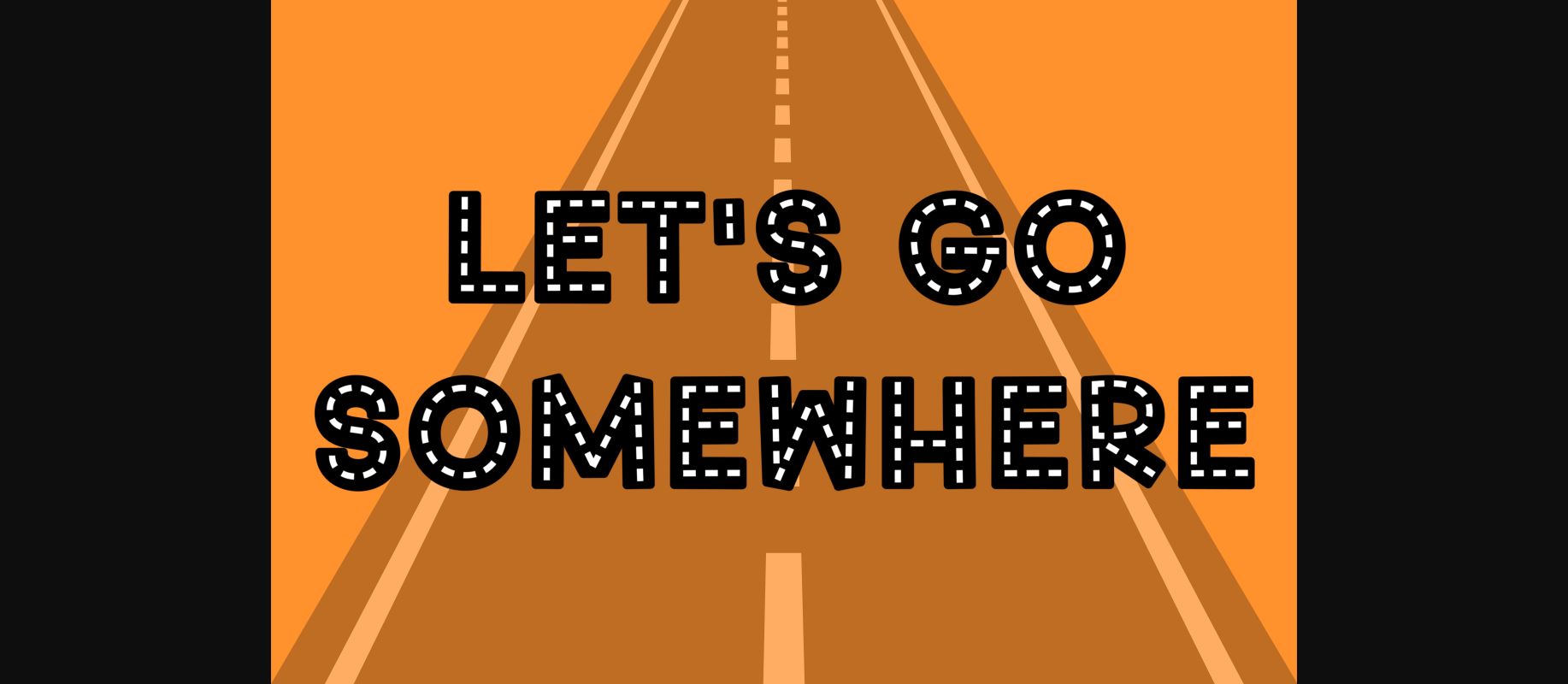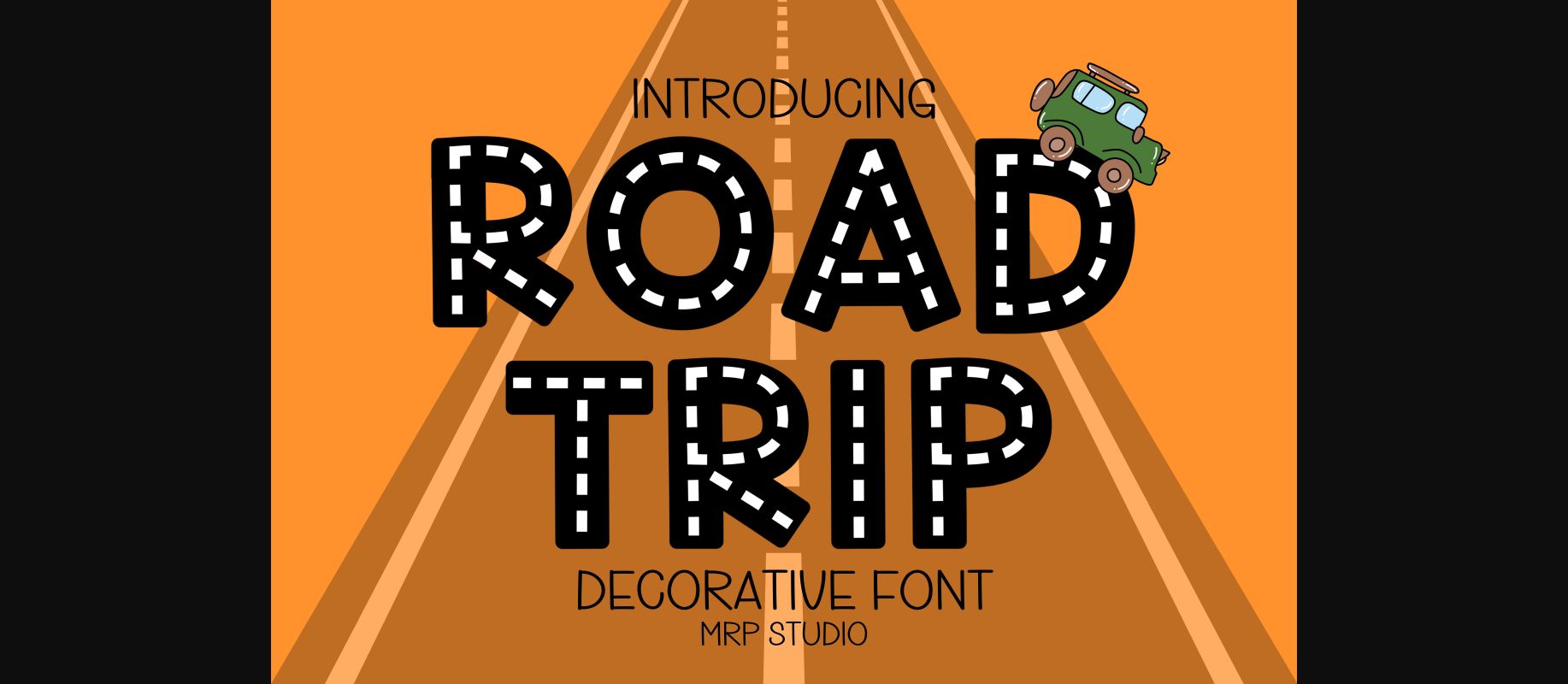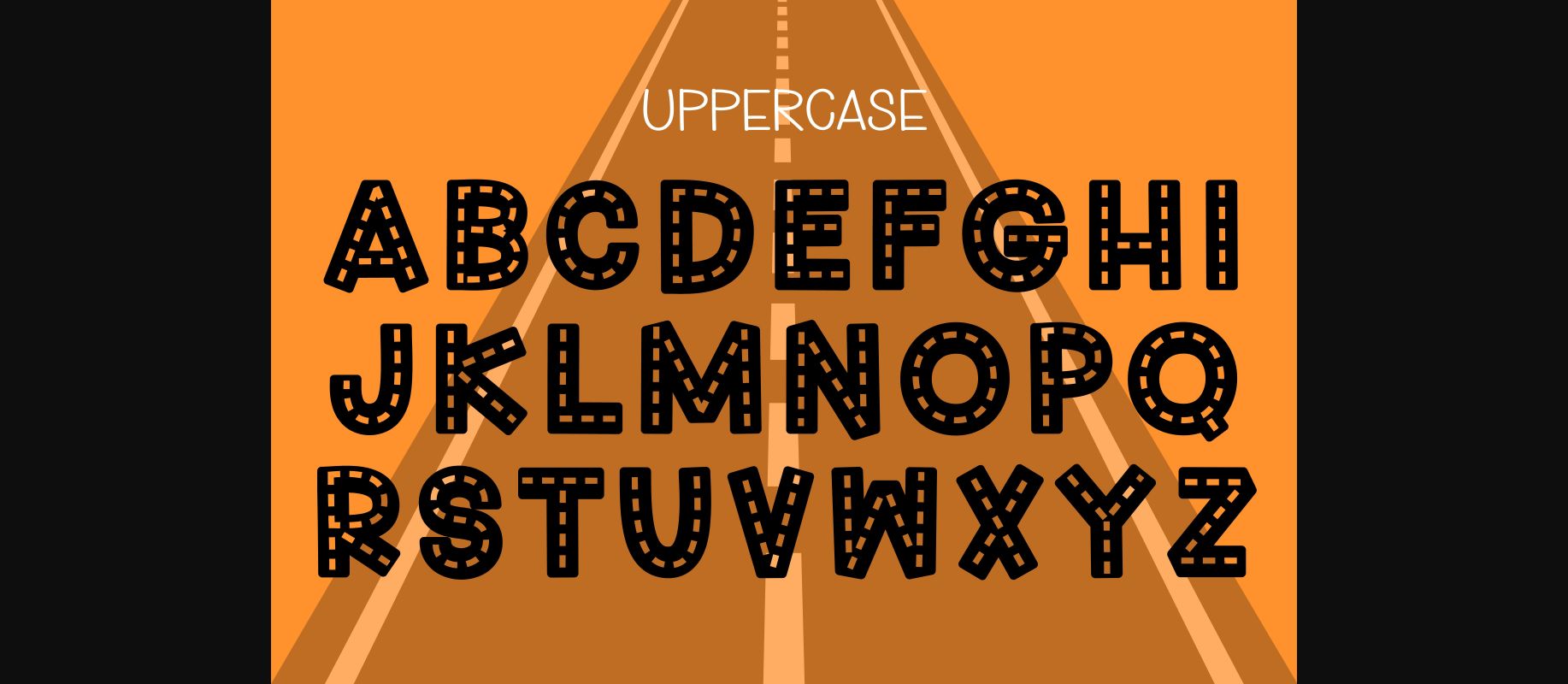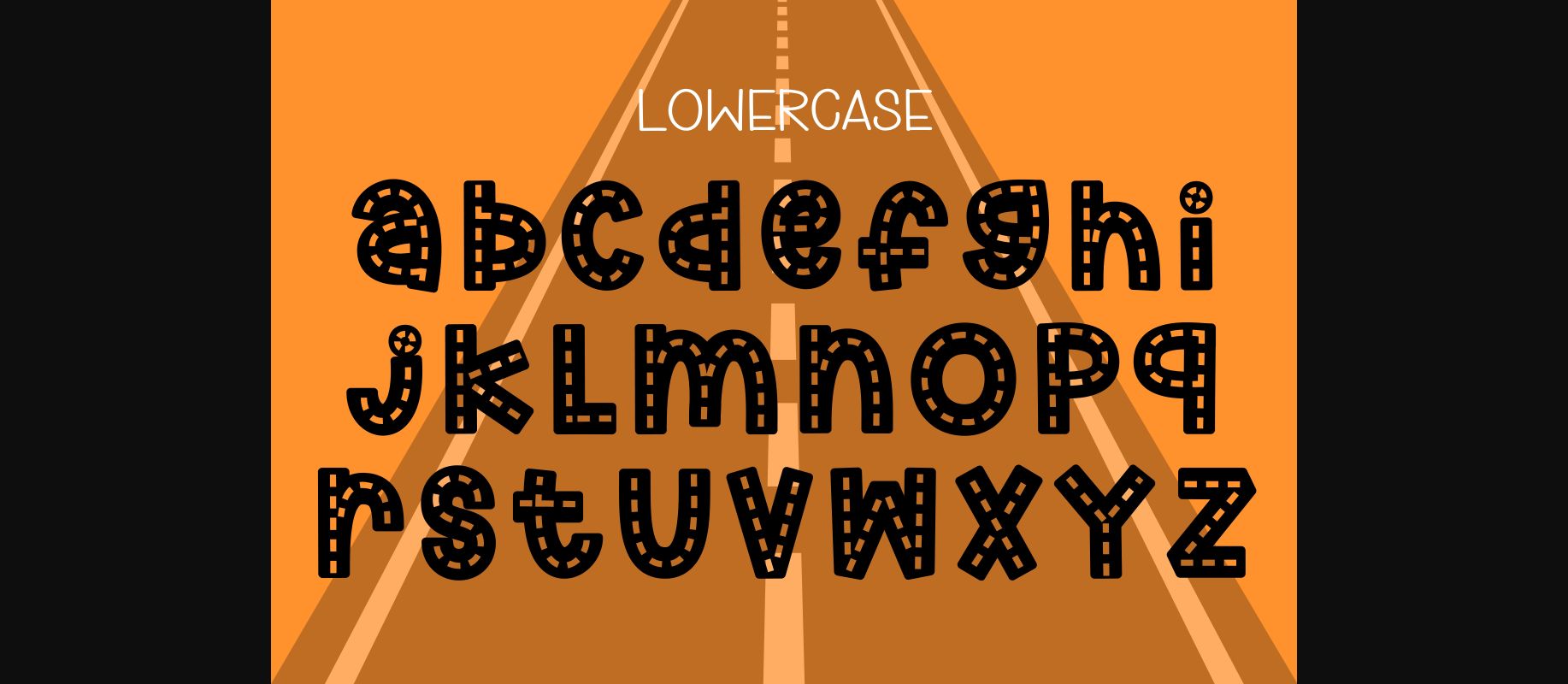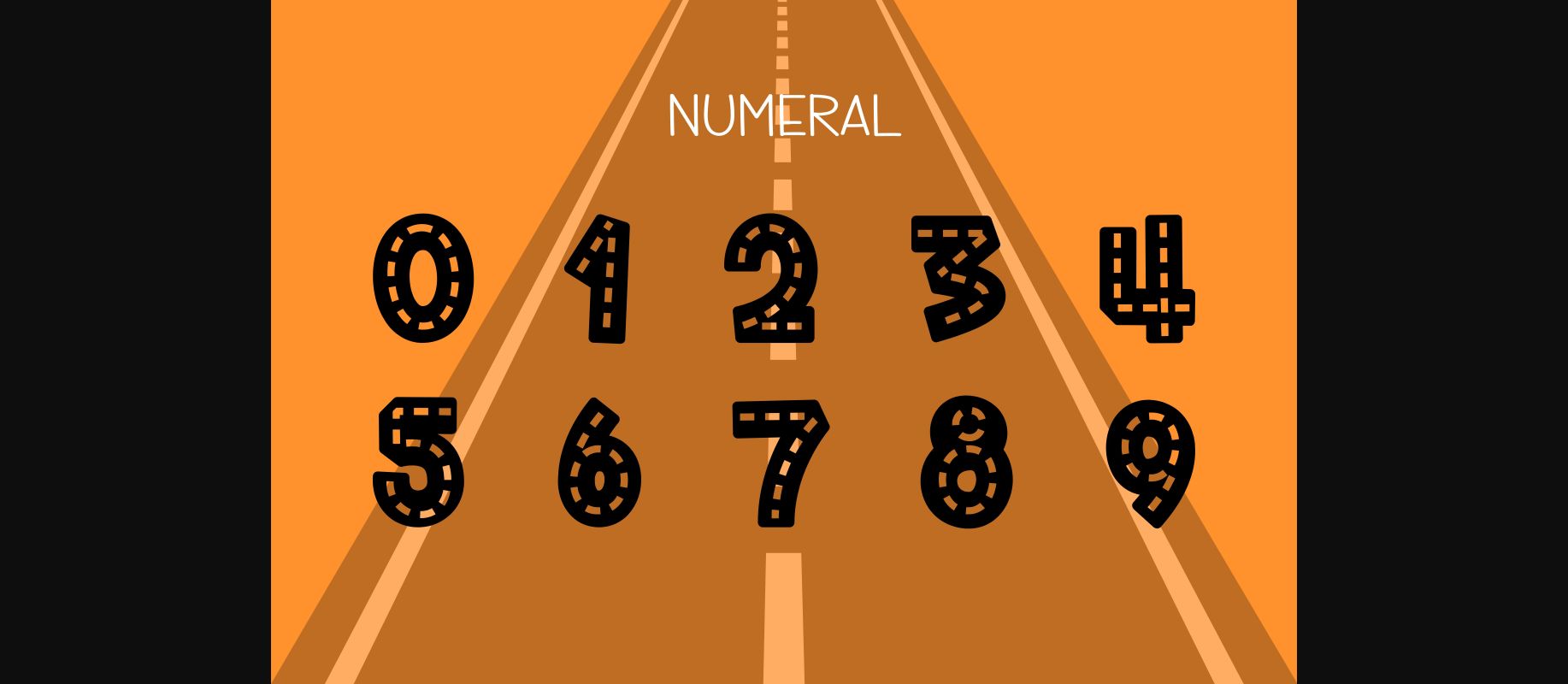
About Road Trip Font
Road Trip is an adorable and playful dash font that is a perfect choice for any project that needs a touch of whimsy. Its simple yet charming design features dashes in place of letters, creating a sense of childlike wonder and innocence. Whether you’re creating a poster, invitation, or anything in between, this font is sure to add a delightful touch of fun.